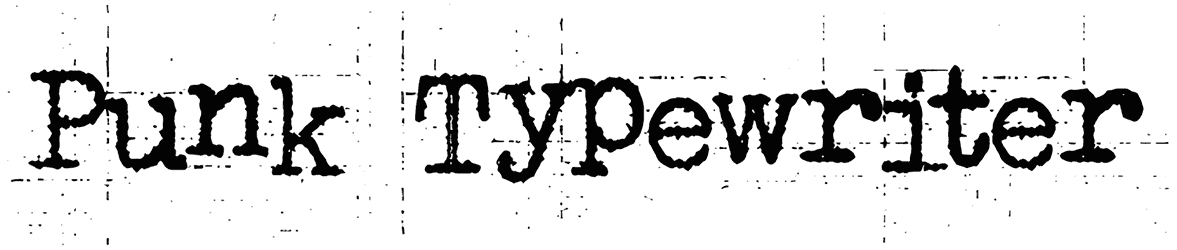
Punk Typewriter Font
Offering a blend of classic, dynamic, vintage, and jauntiness to the audience would be a practical strategy in designing graphic content and you can achieve success through this strategy by utilizing a typewriter font such as Punk Typewriter in your artwork like movie posters, digital banners, product packaging, social media posts, and applications.
Punk Typewriter